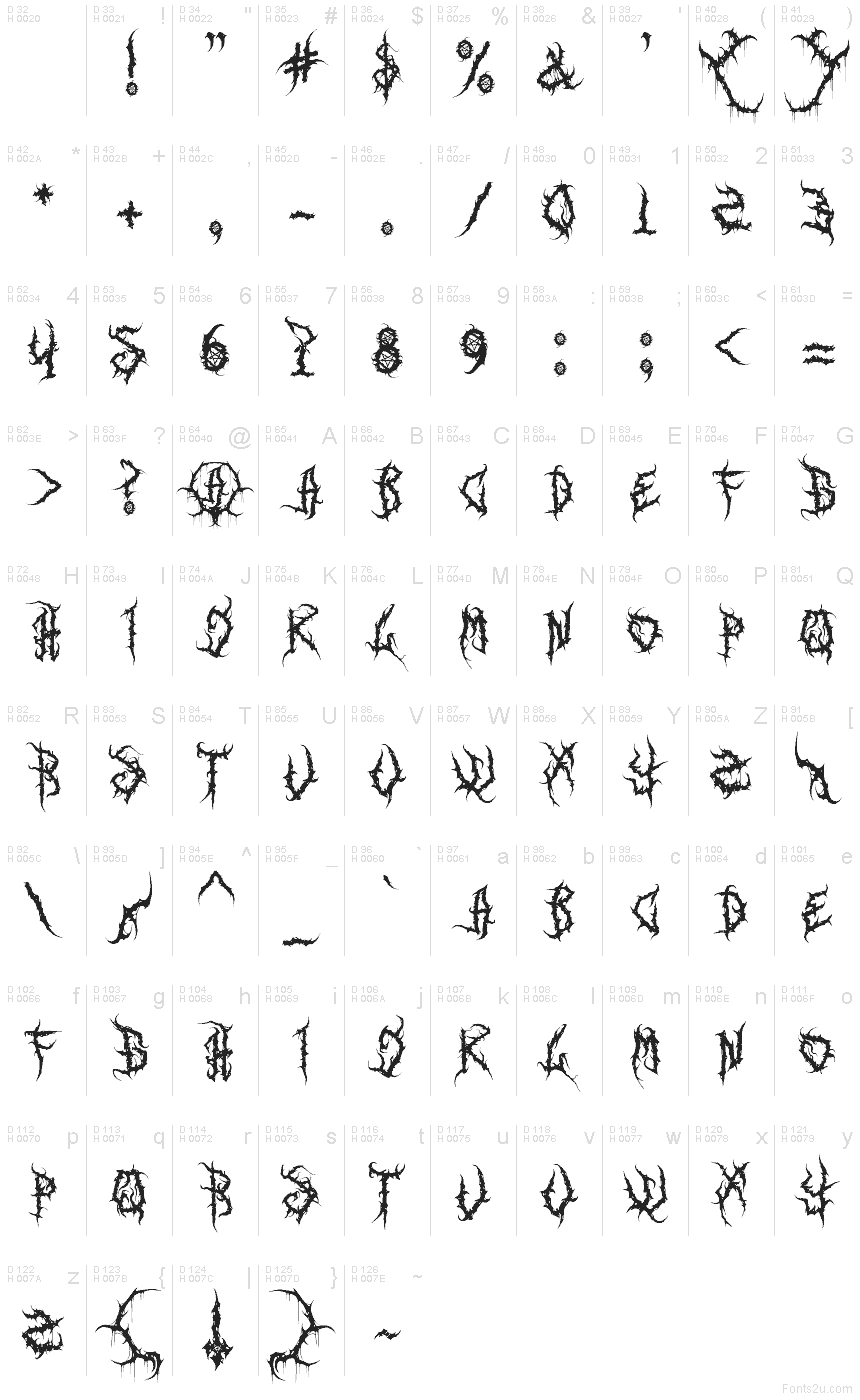
Deadly ground font by Ayyara Letterindo is a free scary display font. Its letters look like thorny vines fused with splintered ink, bristling with barbs and ragged edges that scratch across the page. The rhythm is chaotic but legible, giving headlines a feral, hand-drawn bite without dissolving into noise.
Using Deadly ground, you can brand horror movie titles, metal band logos, Halloween posters, haunted house signage, game splash screens, creepy YouTube thumbnails, and dark book covers. This free font thrives at big sizes on stark backgrounds; let those spikes breathe. Pair it with a clean, condensed sans for credits or captions to keep the fear focused.